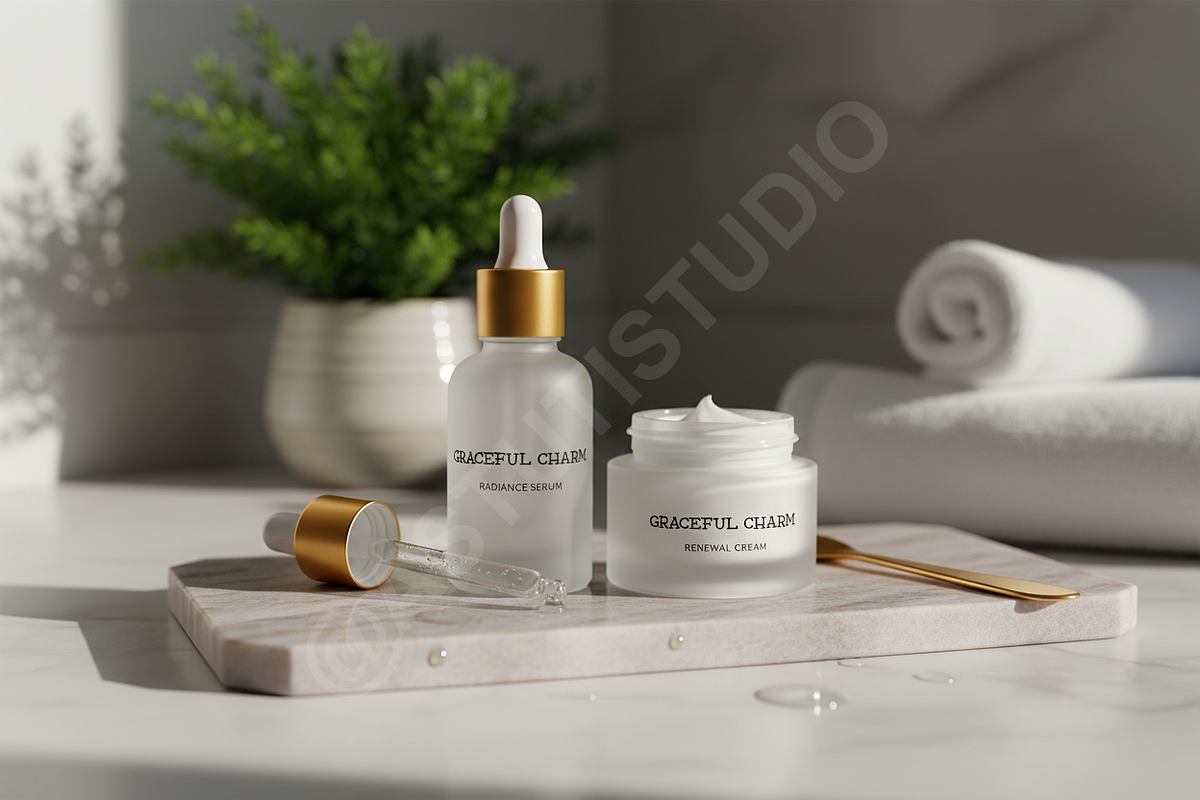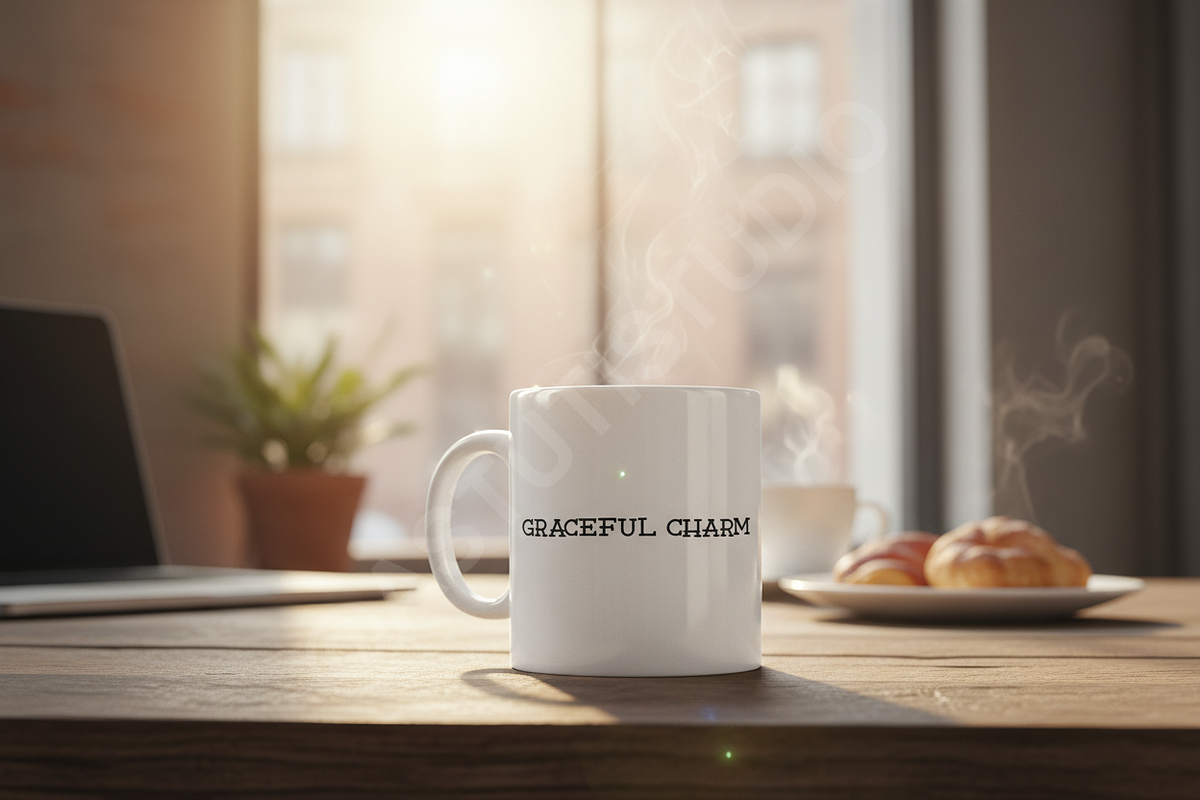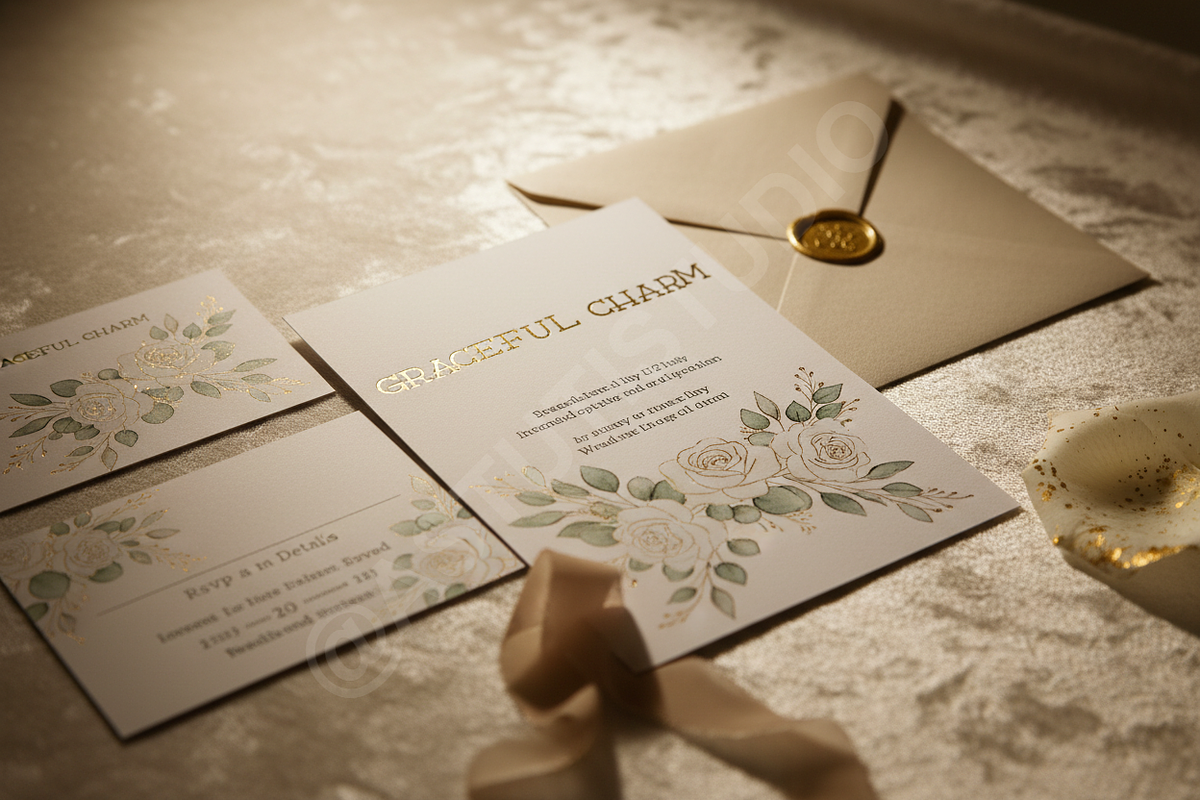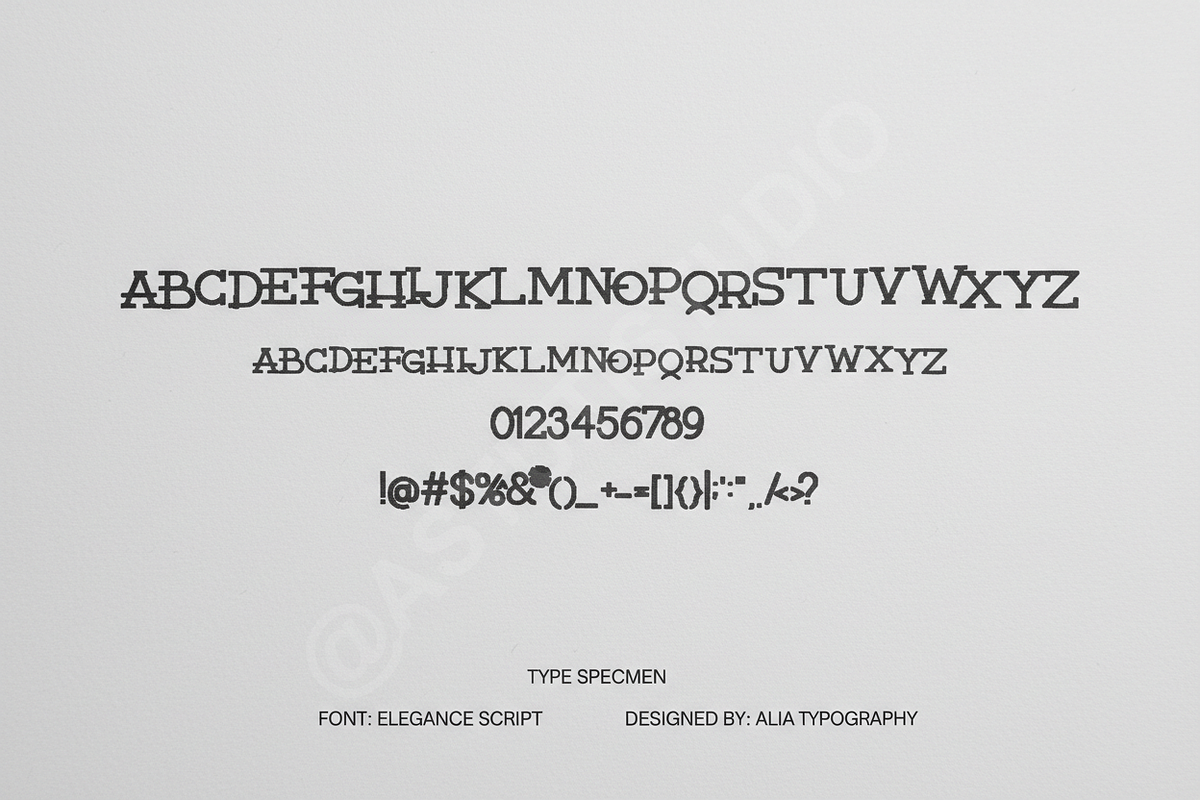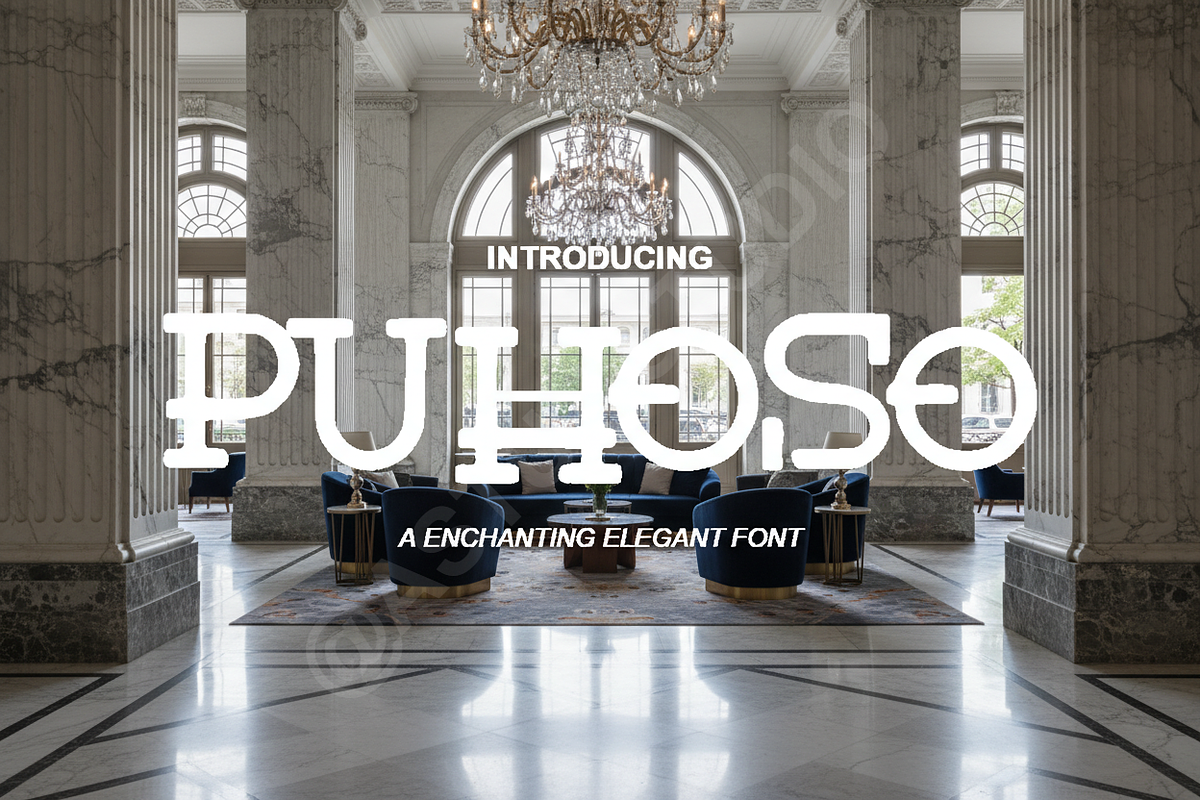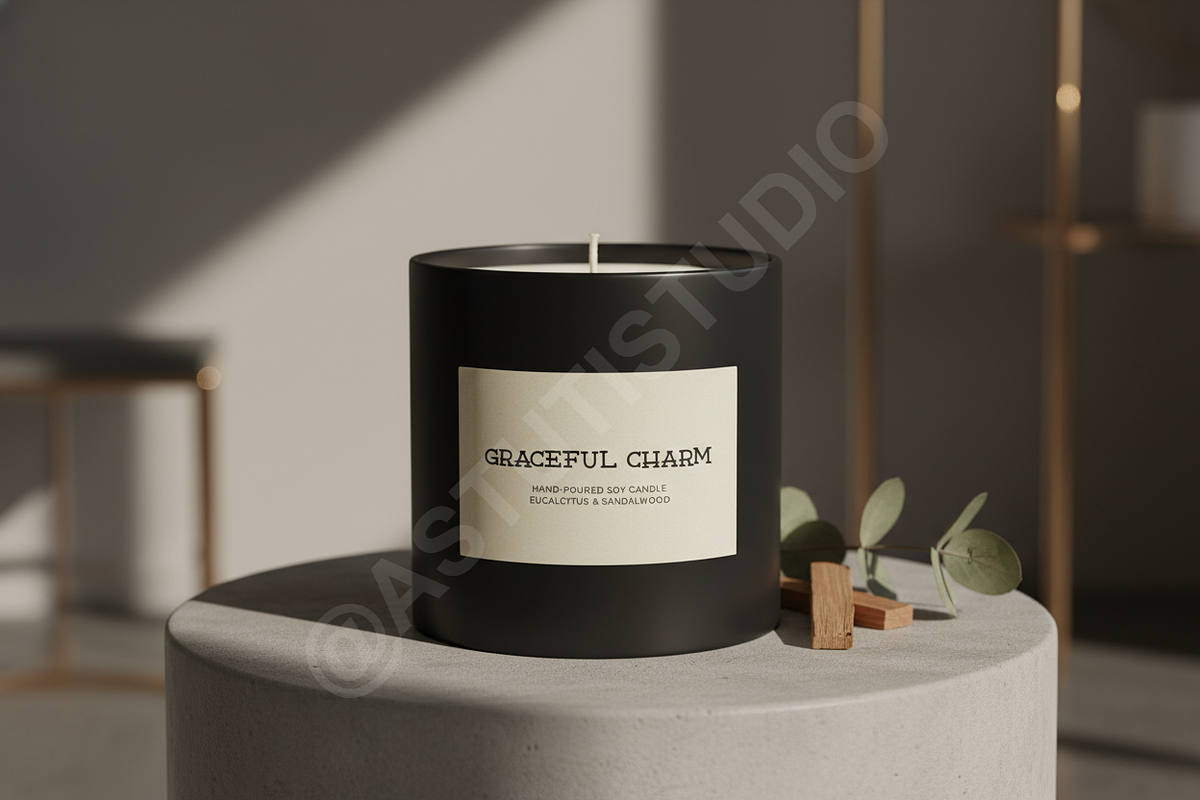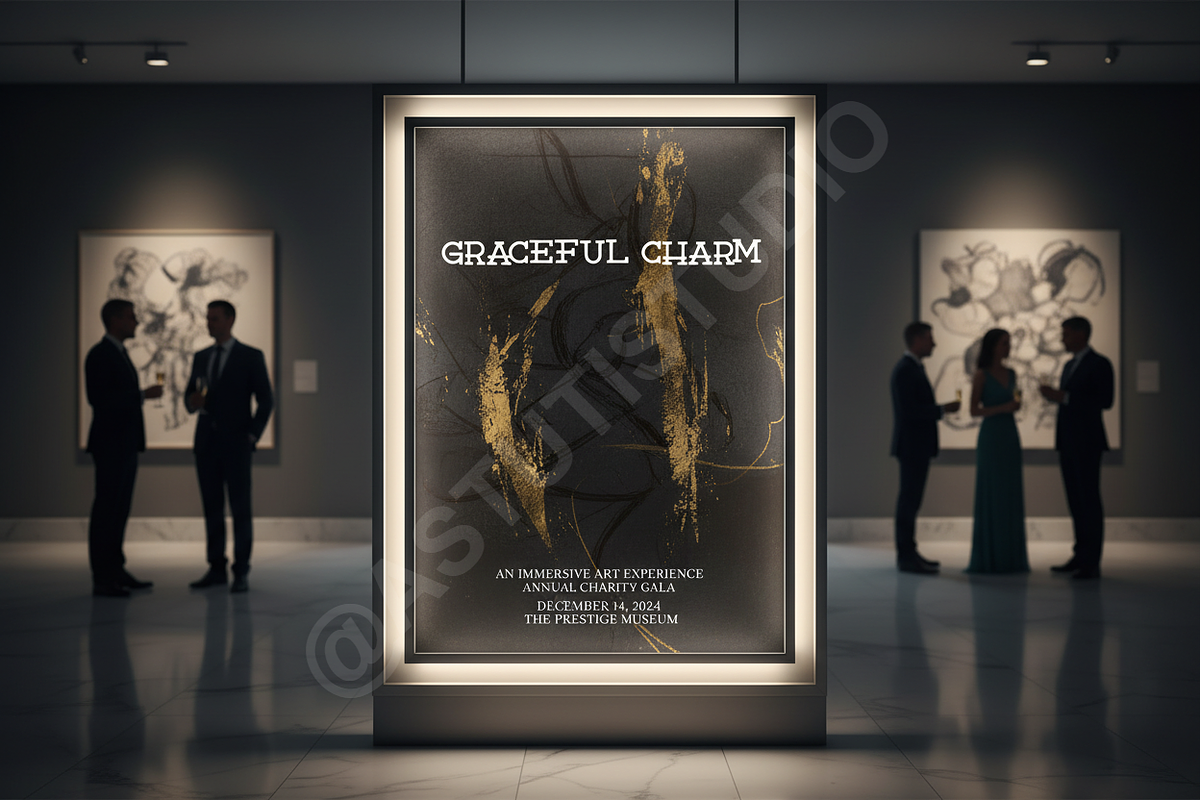
Puhoso - Elegant Modern Serif Typef
Introduction: Puhoso is a sophisticated serif typeface designed for high-end aesthetics. It seamlessly blends classic elegance with a modern minimalist edge, making it the ideal choice for designers seeking a premium touch for their projects. Perfect for luxury branding, editorial layouts, and high-impact social media content.
- Clean and sophisticated letterforms
- High-contrast strokes for an elegant feel
- Extensive multilingual support
- Carefully crafted stylistic alternates and ligatures
- Optimized for both print and digital platforms